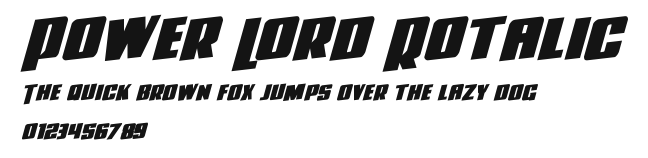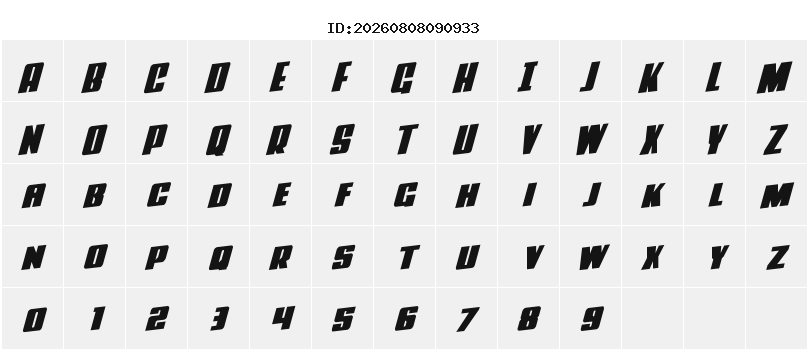
Power Lord Rotalic Preview
• Font Name: Power Lord Rotalic
About Power Lord Rotalic.ttf
Power Lord Rotalic.ttf is a modern, elegant sans-serif font designed for ultimate readability and visual harmony. Perfect for branding, headlines, web design, and print materials.